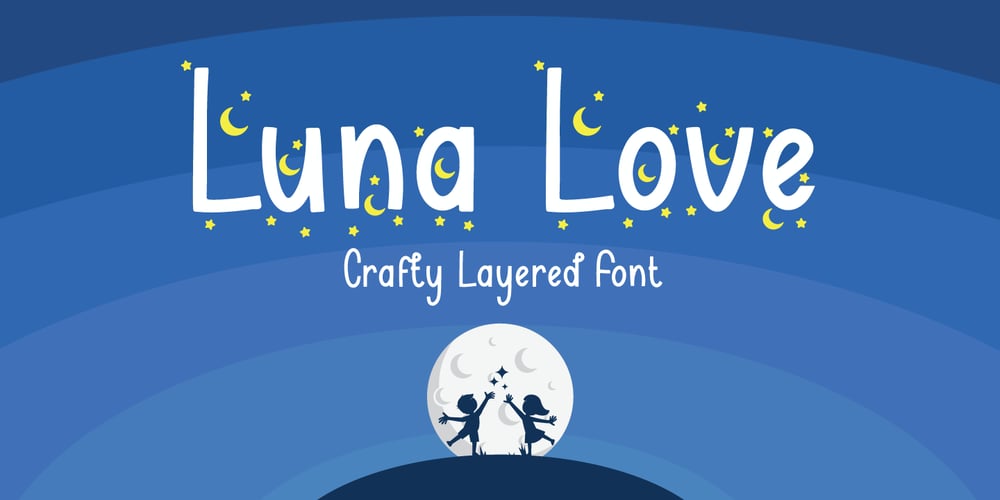
Luna Love Font Family was designed by Fadli Ramadhan Iskandar and published by Attype Studio. Luna Love contains 2 styles and family package options. Introducing Luna love – Inspired by Star on the space & cute display, Luna love is handwritten font cursive that perfect for children product. come with star layered font, make combination of this font to create amazing design!Two style Font: regular & DisplayLuna love is perfect for children product, branding, logo, invitation, stationery, wedding, product packaging, merchandise, monogram,blog design, game titles, cute style design, Book/Cover Title and more.Features :- Multilingual Support – stylistic set